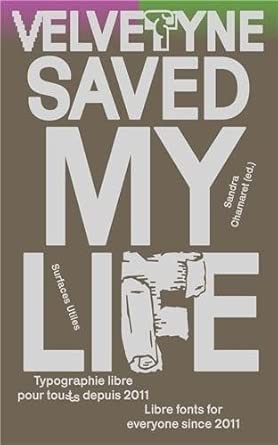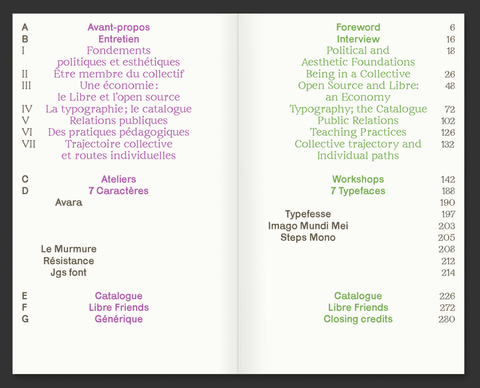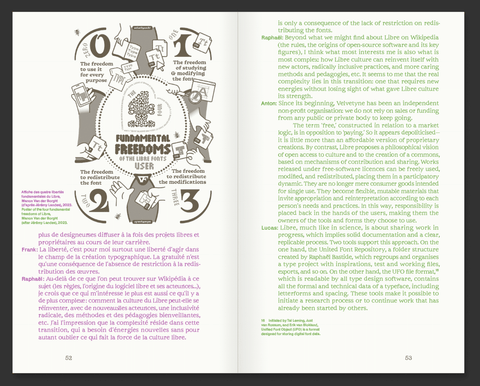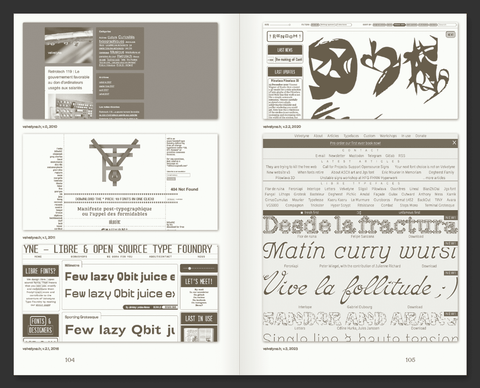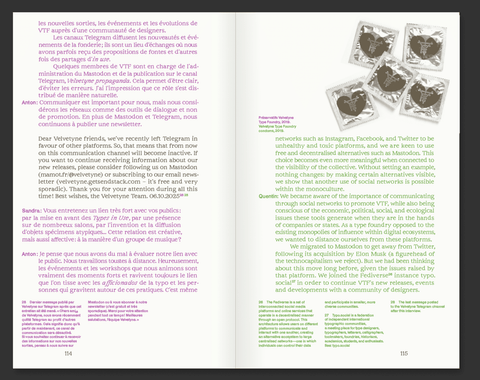
Velvetyne Saved My Life: Typographie libre pour toustes depuis 2011 / Sandra Chamaret
Since 2011, the Velvetyne collective has been dedicated to creating and distributing typefaces under open-source licenses. Its members advocate and promote an uninhibited typographic practice, guided by political principles and aesthetic risk-taking.
This monograph celebrates a generous collective creation—pioneering and recognized on the international scene—that continually questions and reinvents itself. Velvetyne Saved My Life reveals the distinctive workings of this unconventional structure within the contemporary type foundry landscape, its commitment to free-culture and open-source principles, its singular editorial policy, and its pedagogical practice.